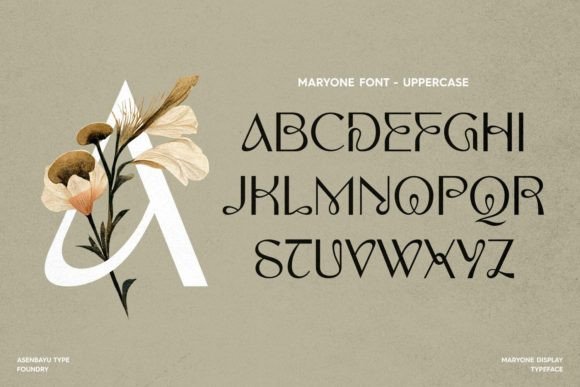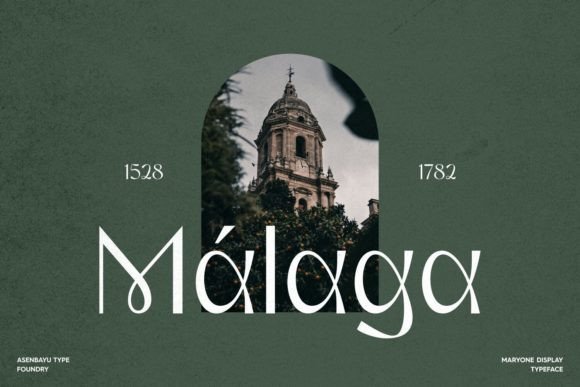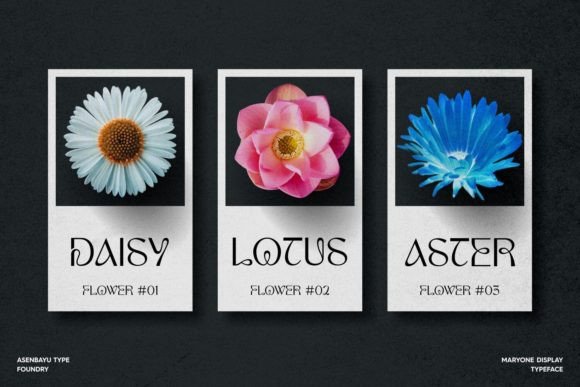
Introduction to Maryone Font
Have you ever been working on a creative project, pouring your heart and soul into every detail, only to realize that the perfect font is missing? You want something that exudes elegance, sophistication, and a touch of whimsy. For designers, finding the right font can be a game-changer, and that’s where the Maryone Font comes in – a stunning display font that’s sure to elevate your designs.
Maryone Font combines the fluidity of Art Nouveau with the modernity of a sans-serif outline, creating a truly unique and stylish design resource. Its beautiful folded ribbons add an extra layer of visual interest, making it perfect for designers looking to add a touch of sophistication to their work.
Key Features of Maryone Font
- High-quality, professional font suitable for creative projects and design resources.
- Includes a wide range of characters and glyphs for maximum flexibility.
- Designed with a unique, modern aesthetic that’s perfect for contemporary designs.
- Perfect for designers, artists, and creatives working on high-end design projects.
Honest Review: Maryone Font
I recently had the chance to work with the Maryone Font, and I must say, it’s a great addition to any designer’s toolkit. The Maryone Font is a high-quality design resource that’s perfect for creative projects that require a unique and elegant touch. ✨
- The font is highly customizable, allowing designers to tailor it to their specific needs.
However, I did encounter a few limitations during my testing. ⚠️ The font doesn’t support as many languages as some other fonts on the market, which could be a problem for designers working on multilingual projects. Additionally, the font’s bold weight can sometimes look a bit too thick, which may not be suitable for all design applications.
Overall, I’m impressed with the Maryone Font and would definitely recommend it to designers looking for a high-quality, free design resource. With a little bit of creativity and experimentation, it’s easy to get the most out of this font and make it a valuable addition to your design arsenal.
The Maryone Font is a free design resource ideal for creative projects requiring a high-quality, stylish font. It features a transparent background, making it versatile for various design applications.
Tips for Getting the Most Out of the Maryone Font
To get the most out of the Maryone Font, experiment with different font sizes, colors, and combinations. You can also use it in conjunction with other design elements to create visually appealing designs.
The Maryone Font is ideal for various design applications, including:
– Logos and branding
– Social media graphics
– Print materials
– Digital presentations
Is the Maryone Font high quality and suitable for print materials?
Yes, the Maryone Font is a high-quality design resource, making it suitable for a wide range of print materials, including business cards, brochures, and posters. The font’s high-quality design ensures crisp and clear typography, even at large sizes or in high-resolution print applications.